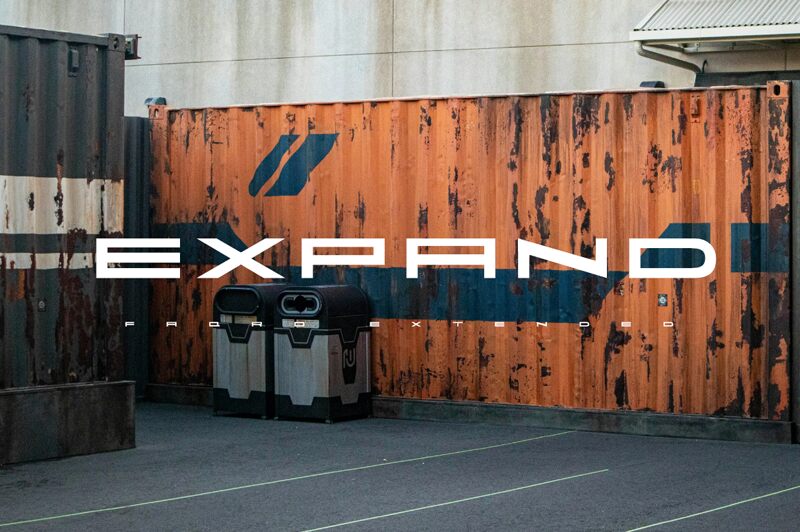
Faqro Extended font family by ffeeaarr includes 5 font styles and is a techno-inspired free typeface. It features clean geometric shapes and a futuristic aesthetic for sleek and modern usage. Its visual clarity and simplicity allow for the possibility of a professional effect for both short texts and larger body sections. It is similar to other innovative fonts that may appear in industrial and technology-related projects.
The font is great for use in branding, logo creation, advertising, packaging, website, and app design. It also suits posters, banners, social media posts, merchandise, book, magazine, or album covers.